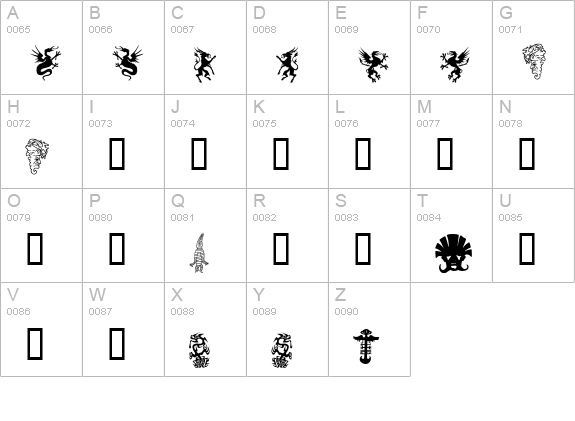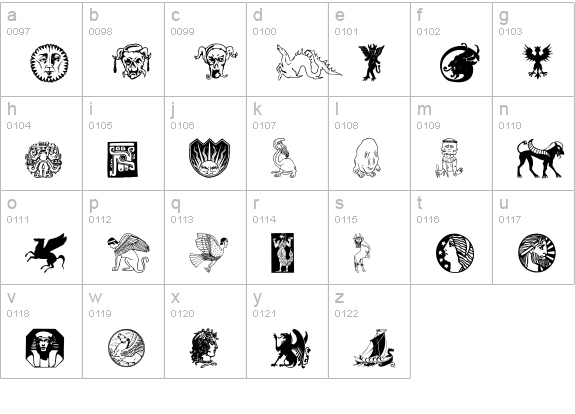
Fabeldyr Font Details
Introducing Fabeldyr, a captivating and enchanting font that brings a touch of whimsy to your designs. This unique typeface is perfect for those seeking a blend of elegance and playfulness, making it ideal for a wide range of creative projects. With its intricate curves and delicate lines, Fabeldyr adds a sense of magic to any piece of typography. Its versatile nature allows for seamless integration into various design styles, from invitations and greeting cards to logos and branding materials. What makes Fabeldyr truly special is that it is not only visually stunning, but also completely free. Yes, you read that right! Fabeldyr is freely available to download at FontsMarket.com, allowing designers and creatives alike to unleash their imagination without any cost. So go ahead and explore the wonders of Fabeldyr font. Let its whimsical charm captivate your audience and bring your designs to life. Whether you're working on a personal project or a professional endeavor, Fabeldyr is here to elevate your typography game with its effortless beauty and artistic flair. Don't miss out on this incredible opportunity to enhance your creative toolkit with a font that is both enchanting and free. Download Fabeldyr today and let your imagination soar.